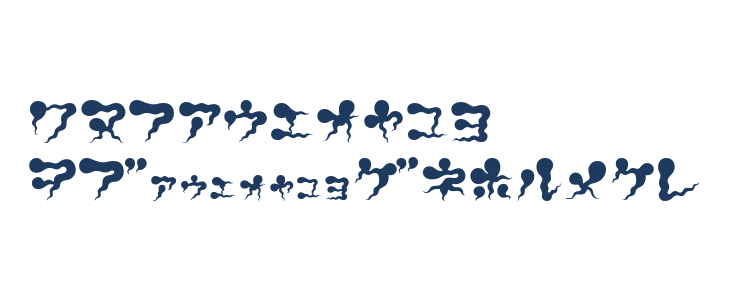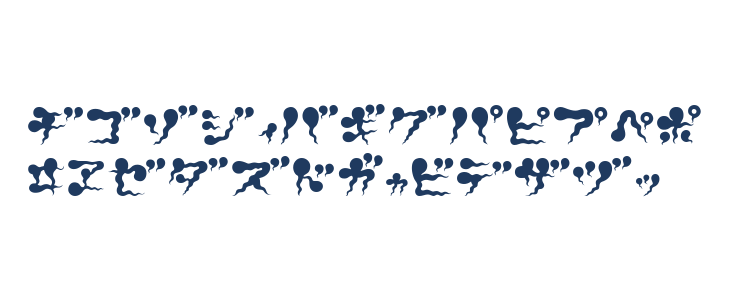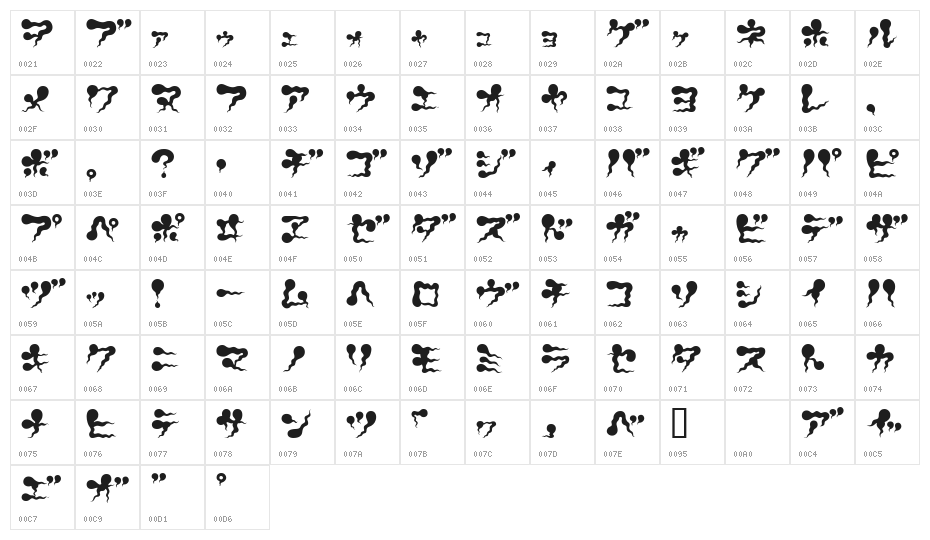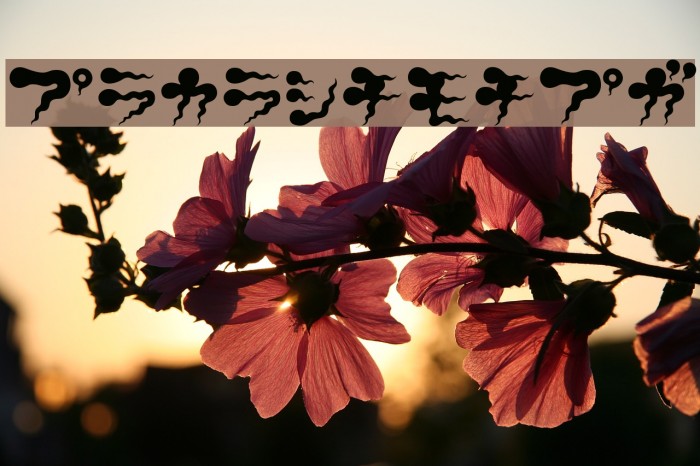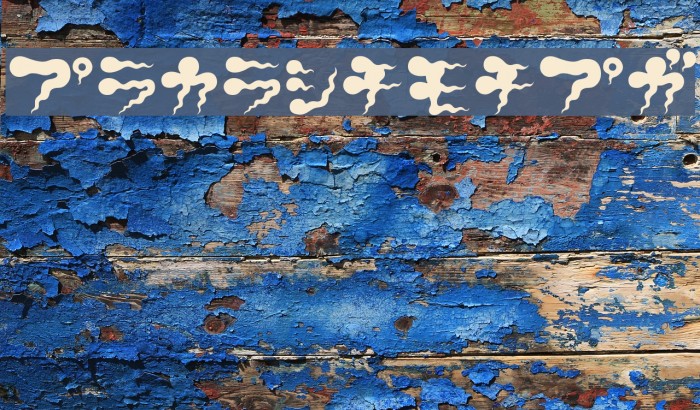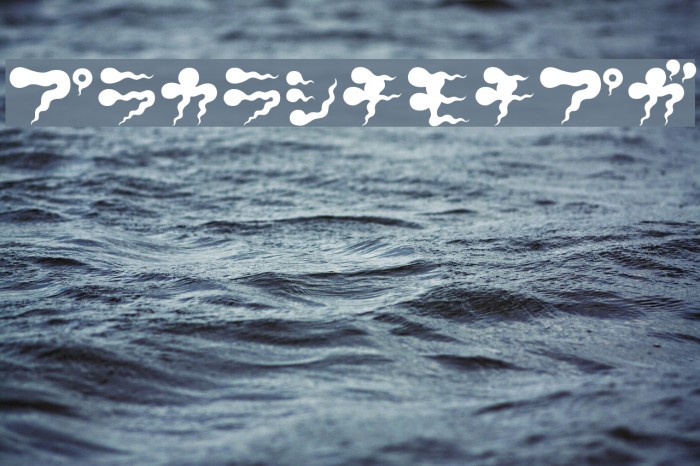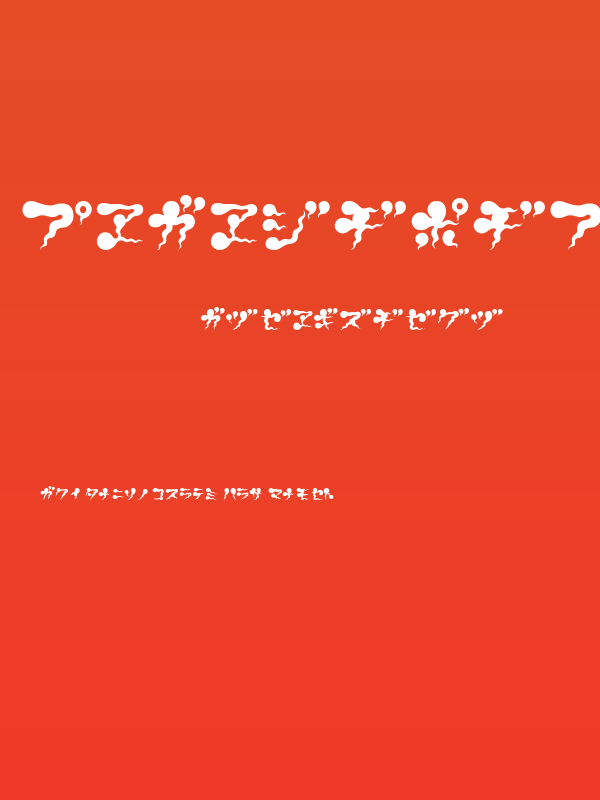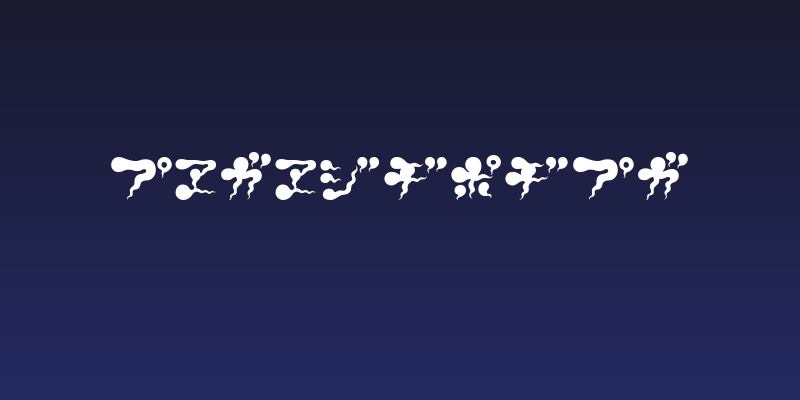
KotodamaKT Font
KotodamaKT Description
This font features a highly decorative and abstract style, characterized by bold, fluid shapes that resemble organic forms. Each character is uniquely designed with a playful and artistic flair, making it stand out with its unusual and eye-catching appearance. The strokes are thick and rounded, creating a sense of movement and dynamism. The overall aesthetic is whimsical and imaginative, suitable for creative and unconventional projects. The font's distinctiveness lies in its ability to convey a sense of fun and creativity, making it ideal for artistic and experimental uses.
| Use Case | Logos, Posters, Artistic projects |
| Proposed Projects | Ideal for artistic projects, creative branding, experimental designs, and unique posters. |